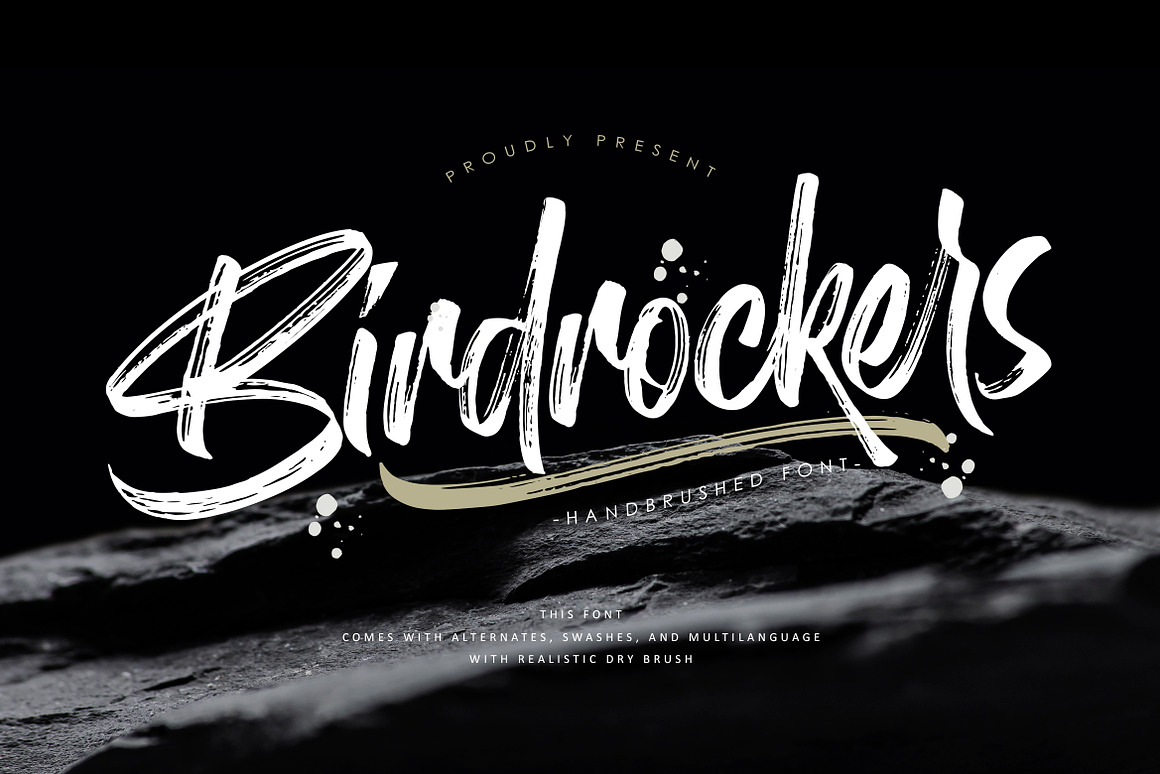
Birdrockers || Realistic Brush Font
Birdrockers || Realistic Brush Font is perfect for artistic street art galleries, rebellious music venues, creative graffiti festivals, edgy fashion brands, underground art collectives, and authentic urban culture campaigns. Its expressive character makes it ideal for independent record labels, street art workshops, creative rebellion movements, urban lifestyle magazines, alternative music festivals, and any project requiring artistic authenticity with brush stroke rebellion and raw creative expression appeal.
This font is exciting because it captures the raw energy and authentic rebellion of street art culture while delivering exceptional functionality for brands celebrating creative freedom, artistic expression, and the unfiltered power of brush-based creativity. The realistically crafted brush strokes embody the spontaneous energy and authentic artistic spirit that defines underground culture, creating typography that feels genuinely hand-painted and artistically rebellious.
The Birdrockers || Realistic Brush Font family typically includes Regular, Bold, and expressive variations with authentic brush alternates, street art-inspired ligatures, and rebellious elements that enhance its artistic personality. This comprehensive collection enables creative professionals to create authentic brand systems that maintain street credibility while offering flexibility for various artistic applications requiring both creative authenticity and contemporary urban market positioning.
Whether you're developing identity systems for artistic collectives, creating materials for street art festivals, or designing promotional content for creative rebellion brands, Birdrockers || Realistic Brush Font Free Download delivers the artistic authenticity and rebellious appeal that connects with creative audiences seeking genuine artistic expression and urban culture. Its expressive presence ensures memorable brand recognition across digital platforms and print materials, making it perfect for websites, mobile applications, and artistic campaigns that celebrate creative freedom, street art culture, and the transformative power of authentic brush-based expression with contemporary urban standards and genuine artistic rebellion.